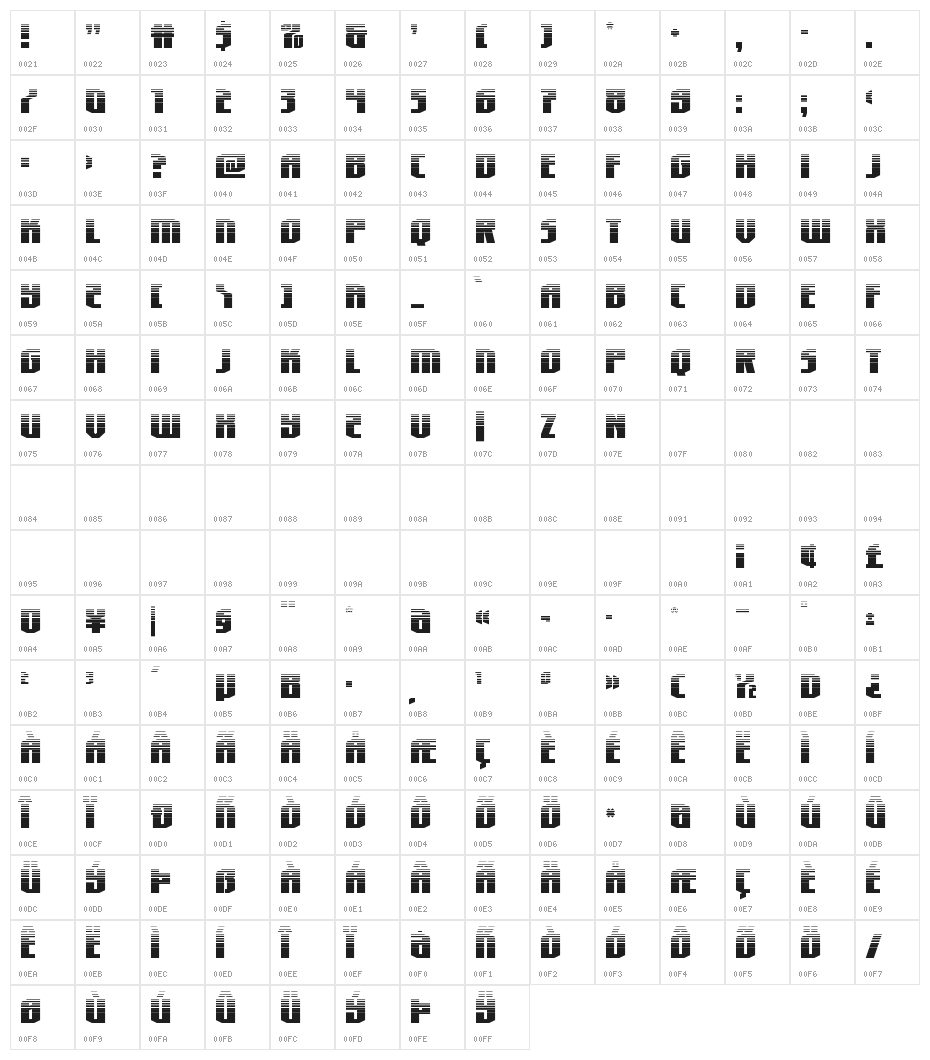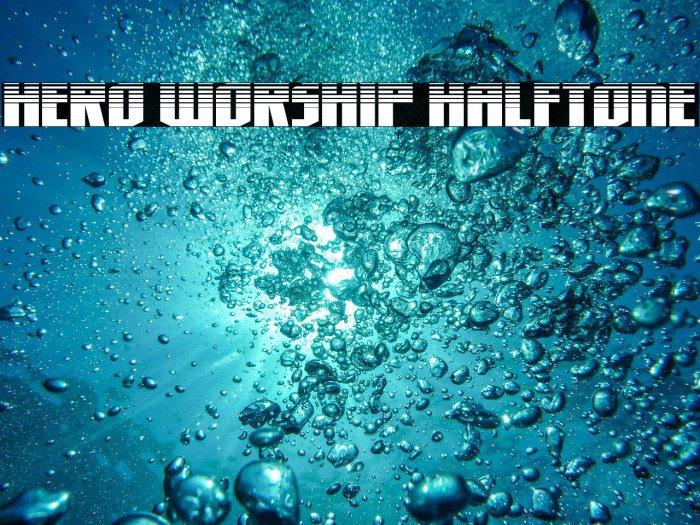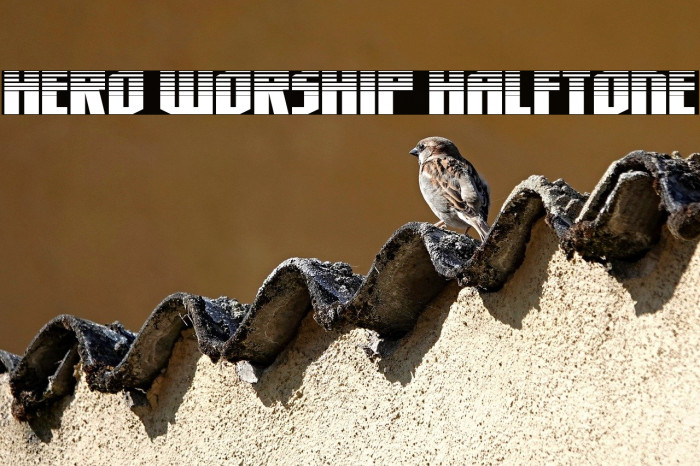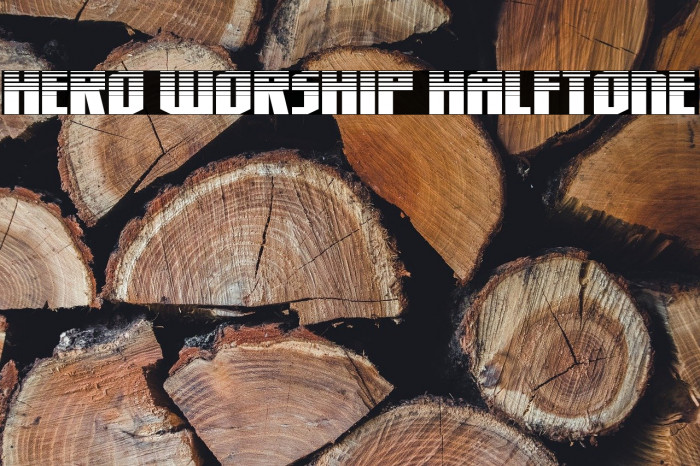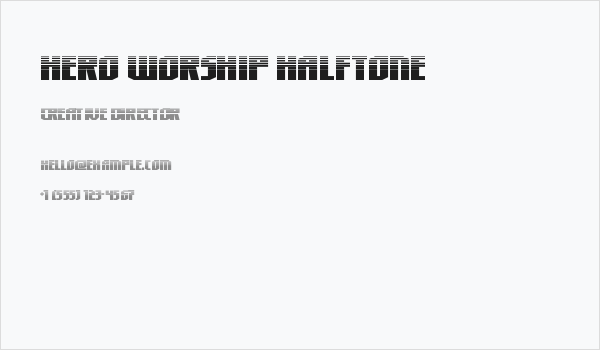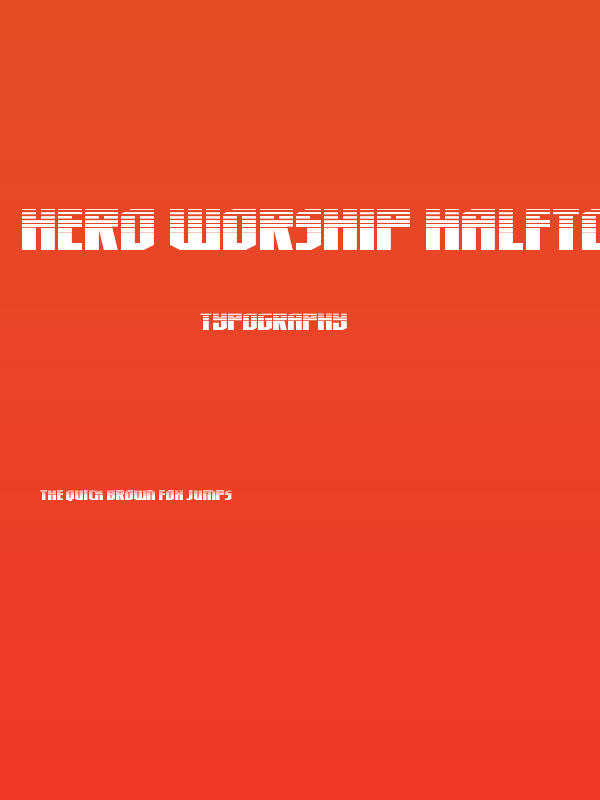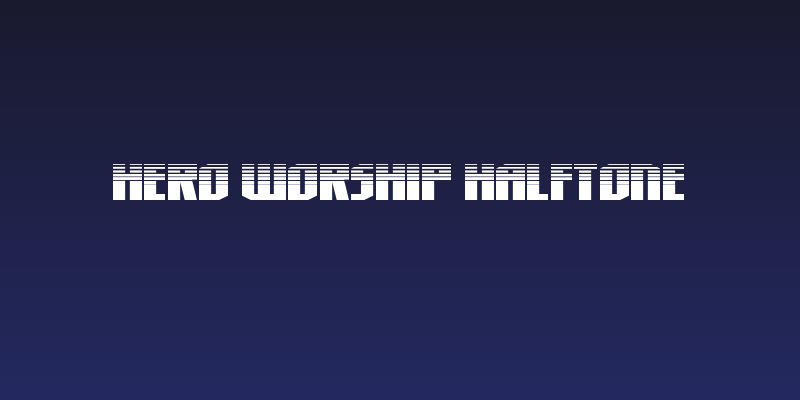
Hero Worship Halftone Font
Hero Worship Halftone Description
This font features a bold, geometric design with a unique halftone effect that creates a striking visual impact. Each character is constructed with horizontal lines that vary in thickness, giving the appearance of a gradient or shadow effect. The uppercase and lowercase letters maintain a consistent style, emphasizing the bold and structured nature of the typeface. Numbers and special characters are designed with the same attention to detail, ensuring a cohesive look across all elements. The font's distinct style makes it ideal for projects that require a modern and edgy aesthetic.
| Proposed Projects | Ideal for posters, album covers, branding, and any project needing a modern, edgy look. |